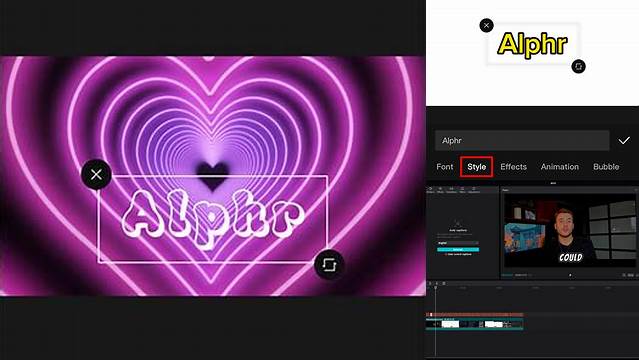
Best CapCut Fonts: Enhance Your Video Editing
Are you a video editing enthusiast, or maybe you're just starting out with the awesome CapCut app? One of the most fun and important aspects of video editing is choosing the right fonts to make your content pop. Selecting the best fonts for editing CapCut can significantly enhance the visual appeal of your videos, making them more engaging and professional-looking. In this article, we'll dive deep into the world of CapCut fonts, exploring various styles, discussing where to find them, and offering tips on how to use them effectively. So, buckle up, guys, and let's get started!
Why Font Choice Matters in CapCut
First things first, why are fonts so important? Well, think of fonts as the voice of your video. They convey the tone, mood, and personality of your content. The right font can make your message more compelling and memorable, while the wrong one can make your video look amateurish and off-putting. When you're editing in CapCut, you're essentially creating a visual story, and fonts play a huge role in telling that story effectively.
Choosing the perfect font goes beyond just aesthetics; it's about functionality. You want fonts that are easy to read, especially if you're adding text overlays, captions, or titles. Legibility is key, particularly on smaller screens like smartphones, where most people watch videos these days. It's also essential to consider the overall theme and style of your video. Is it a fun, upbeat vlog, a serious tutorial, or a captivating travel video? The font you choose should complement the video's genre and target audience. So, as you can see, the impact of font choice on CapCut is quite significant. Understanding the nuances of font selection is the key to enhancing your video content, ensuring your message resonates, and leaving a lasting impression on your audience. That's why taking the time to explore the options and choose wisely is worth it. You can think of it like this: the best CapCut fonts are the unsung heroes of your videos. They might not always be the first thing people notice, but they work silently in the background, making your content more accessible and engaging. The right font can grab the viewer's attention, set the tone, and make your content look more polished. Whether you're a seasoned video editor or just starting, learning about fonts is a must-do if you want to improve your video production game. And remember, there's a whole world of fonts out there, so don't be afraid to experiment and find the ones that work best for you!
Exploring Font Styles in CapCut
CapCut offers a fantastic range of font styles, each with its unique personality and appeal. Understanding these styles is crucial to make the best font choices for your projects. Let's break down some popular font categories to give you a better idea of what's available and how to use them effectively.
1. Serif Fonts: Serif fonts are characterized by small decorative strokes called serifs at the end of each letter. These fonts often exude a sense of elegance, tradition, and formality. They are perfect for titles, headlines, and any text that requires a touch of sophistication. Think of fonts like Times New Roman or Georgia. However, because of their decorative nature, serif fonts aren't always the best for extensive body text, especially on smaller screens, as the serifs can make them a bit harder to read. But in the right context, they can look absolutely stunning. You will frequently use serif fonts on videos that have a classic or vintage aesthetic.
2. Sans-Serif Fonts: Sans-serif fonts are the complete opposite of serif fonts; they lack the small decorative strokes. They are known for their clean, modern, and minimalist look. These fonts are incredibly versatile and widely used for their readability, making them a great choice for body text, captions, and anything you want to be easily accessible. Fonts like Arial, Helvetica, or Open Sans are common examples. They're simple, straightforward, and get the job done. Because of their readability, they are perfect for modern and tech-related content.
3. Script Fonts: Script fonts mimic handwriting and calligraphy. They add a touch of personality, elegance, and flair to your videos. You will find them great for titles, quotes, or any text that you want to feel creative or personal. However, be mindful when using them, as script fonts can sometimes be challenging to read if used excessively or in small sizes. The key is to use them sparingly and consider your audience's readability needs. Fonts like Brush Script MT or Pacifico can add a fantastic creative touch to your videos.
4. Display Fonts: Display fonts are designed to be eye-catching and attention-grabbing. They often have unique shapes and styles and are perfect for headlines, titles, and any text you want to stand out. Display fonts can range from bold and playful to quirky and eccentric. Be careful not to overuse them, as they can easily overwhelm the viewer. Display fonts such as Impact or Bebas Neue can be a good choice for your videos.
Understanding these different font styles and experimenting with them will help you refine your selection process. Remember, the goal is to choose fonts that improve the visual communication of your videos, and make the content more engaging. This will make your video content more professional and polished.
Where to Find the Best Fonts for CapCut
CapCut provides a great selection of fonts, but the beauty of video editing is the ability to expand your toolkit! So where do you find the best fonts for CapCut? There are several websites and resources that offer a plethora of fonts that you can use to elevate your video projects. Let's explore some of the best sources:
1. CapCut's Built-In Fonts: The easiest place to start is with the fonts available directly in the CapCut app. They offer a wide array of options, from basic to more unique styles. These fonts are ready to use and perfectly optimized for the app. You will find a font for almost every type of video on CapCut. The integrated fonts are easy to use, and they work seamlessly within the editing process. You don't need to download or install anything extra. This convenience makes CapCut's built-in options an excellent place to begin your search. They are generally easy to read, so they're also a great choice if you are a beginner.
Conclusion: Elevate Your Videos with the Right Fonts
Selecting the best fonts for editing CapCut is a critical step in creating engaging and professional-looking videos. By understanding the different font styles, knowing where to find great fonts, and applying effective usage tips, you can dramatically improve the visual appeal and impact of your content. Remember that fonts are more than just decoration; they're a fundamental element of your video's storytelling. So, take the time to experiment, find the fonts that resonate with your style, and watch your videos come to life! Happy editing, everyone!